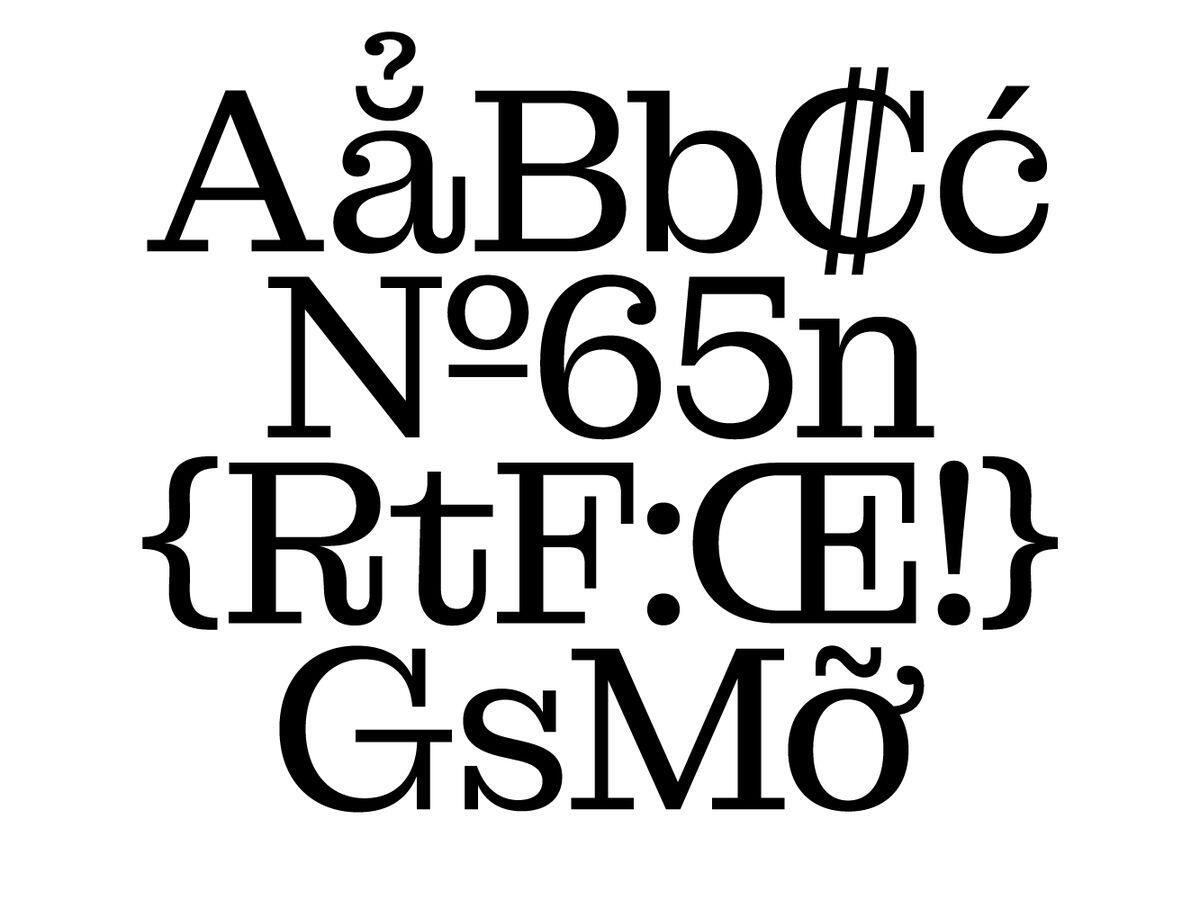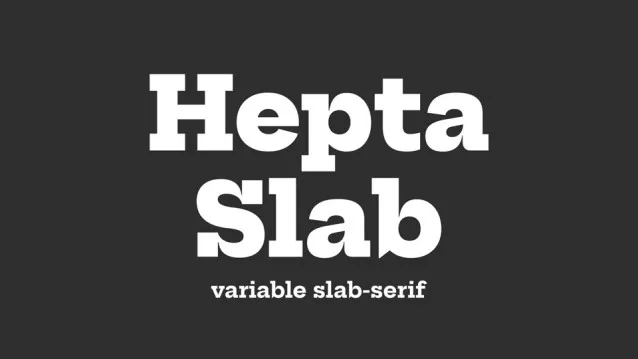
The Protest Types began as personal project by designer Octavio Pardo to reflect on the shapes and voices of protest signs. So far it spans four font families, each with a different voice. Most fonts in the collection share the same spacing and kerning.
Hepta Slab is a slab-serif revival based on specimens of antique genre types from Bruce and Co., primarily Antique 307. The family is a variable font which consists of 10 weights with the extremes intended for display use and the middle weights for setting text. Features include lining numerals, oldstyle numerals, case sensitive punctuation, fractions, superior and inferior numerals as well as multiple stylistic alternates.